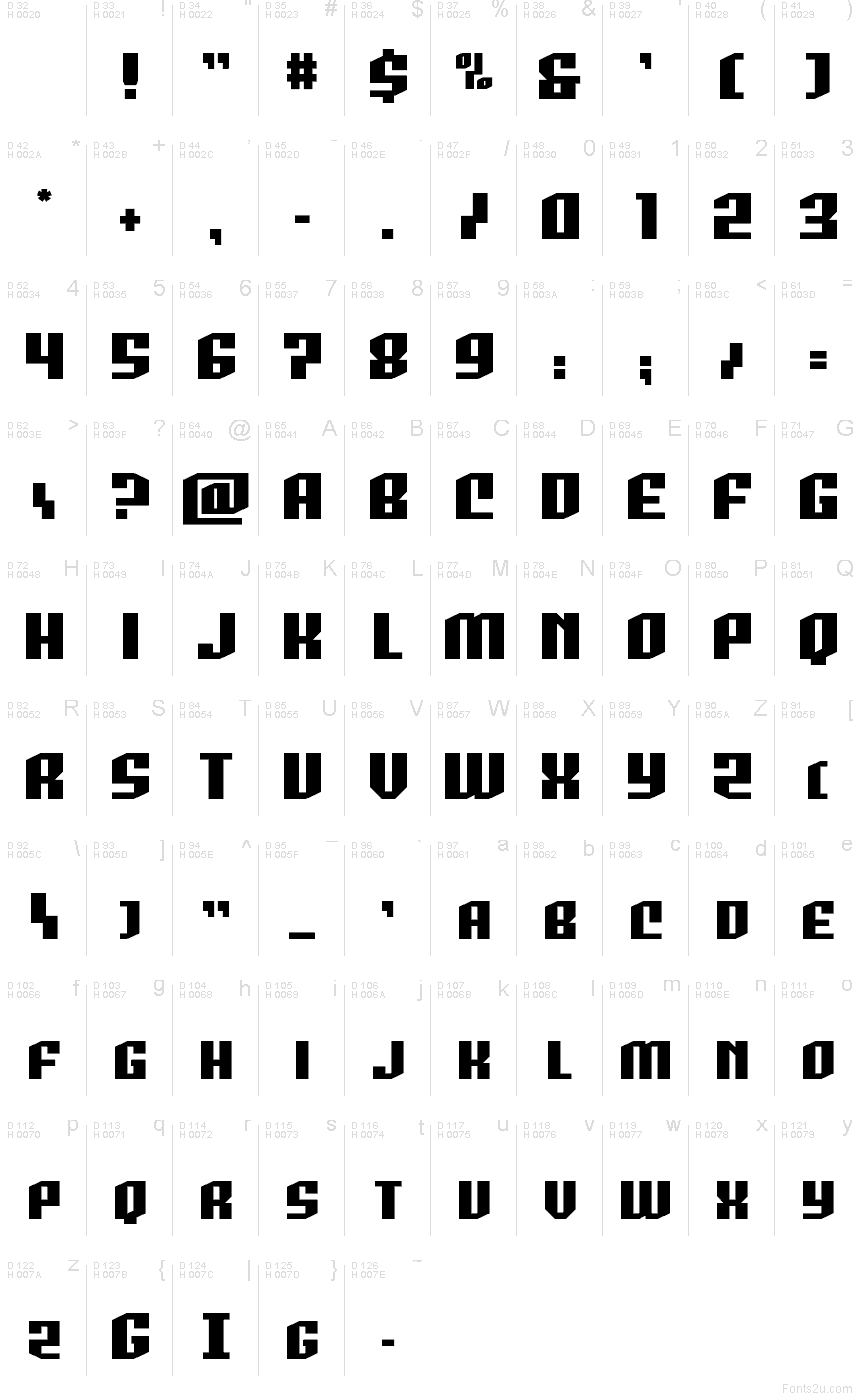
Viper Command Expanded font by Daniel Zadorozny of Iconian Fonts is a free techno font with a wide, armored stance and razor-cut corners. Its squared shapes and shaved-in notches feel like stenciled plating-crisp, mechanical, and a little menacing-so headlines land with instant sci‑fi authority without needing extra effects.
Using Viper Command Expanded, you’ll get strong results on game titles, esports team branding, cyberpunk posters, futuristic UI mockups, tech event flyers, album/EP covers, and streaming overlays. Keep it roomy at larger sizes so the sharp geometry reads clean, and pair it with a plain neo-grotesk sans for body copy to let this free font do the shouting.